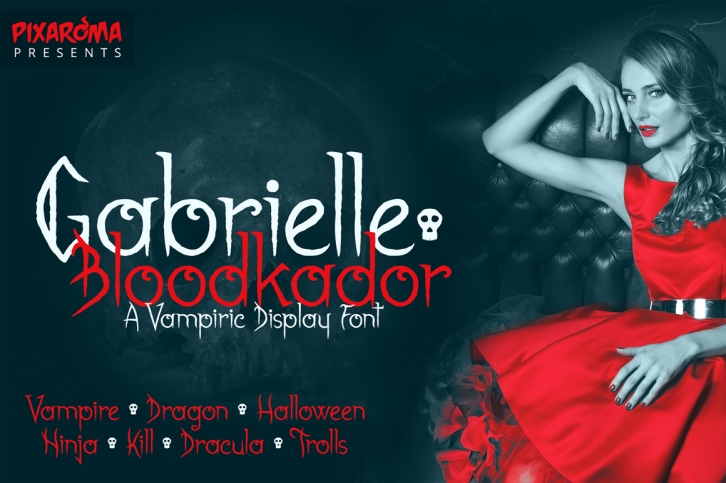
Gabrielle Bloodkador Halloween Font Download
Gabrielle Bloodkador Halloween is a trendy and unique font with an authentic style. It was designed by pixaroma and it's a great choice for creative people who need such a font. It was released on September 16, 2017 and the file size is 5.83 MB. Gabrielle Bloodkador Halloween will add an organic vibe to any design idea!